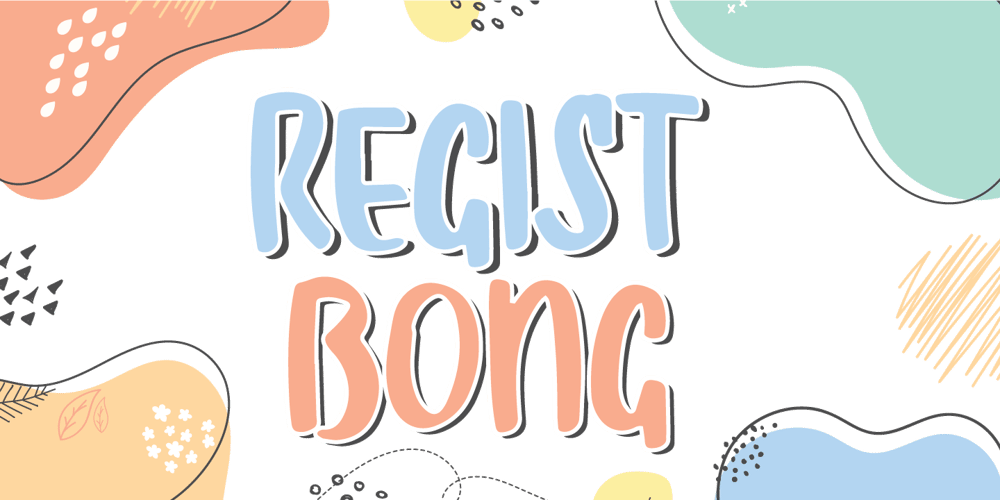
Regist Bong Font Family was designed by Sigit Dwipa and published by Nirmana Visual. Regist Bong contains 1 styles and family package options. Perfect for everything from branding to crafting. This versatile font is great for merchandise, products, quotes, editorial, posters or whatever design you have in mind. This is a great font for crafters.Thank you and Happy Crafting!